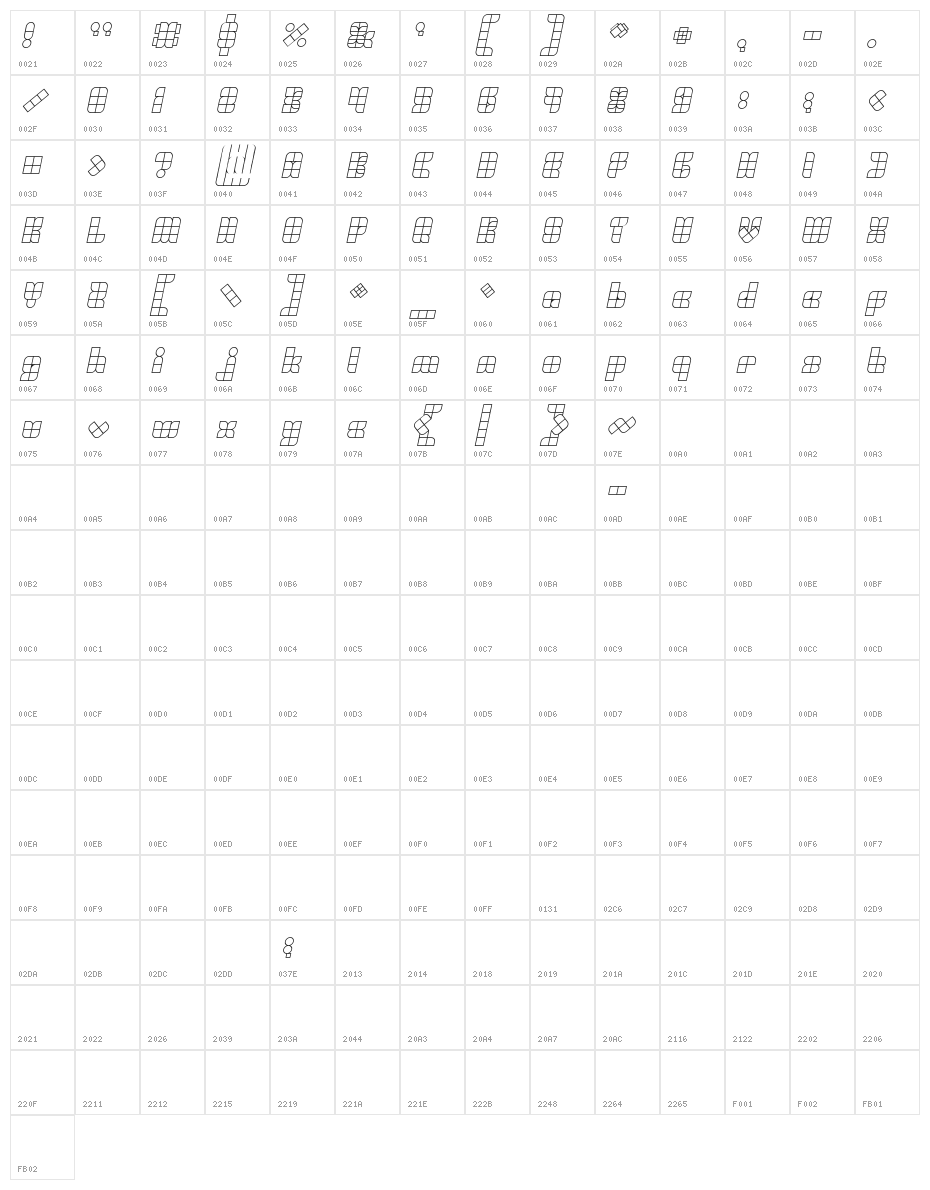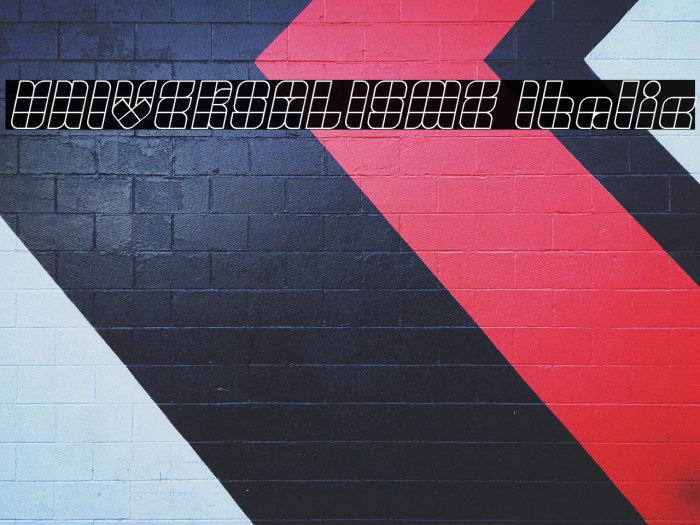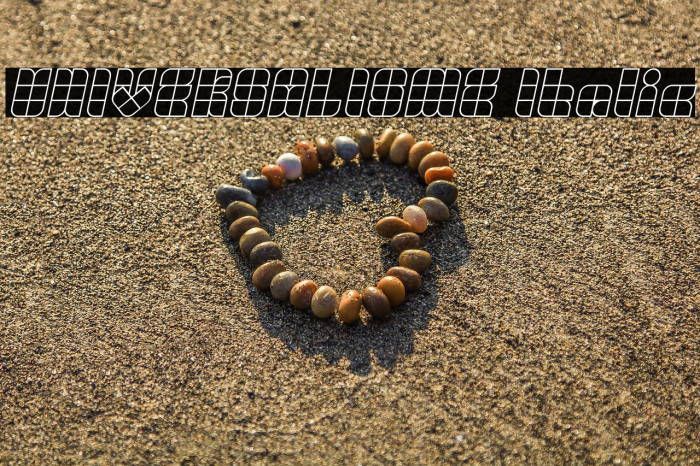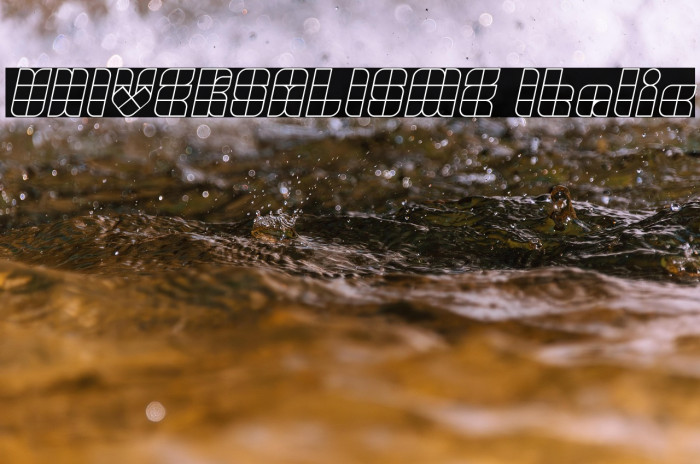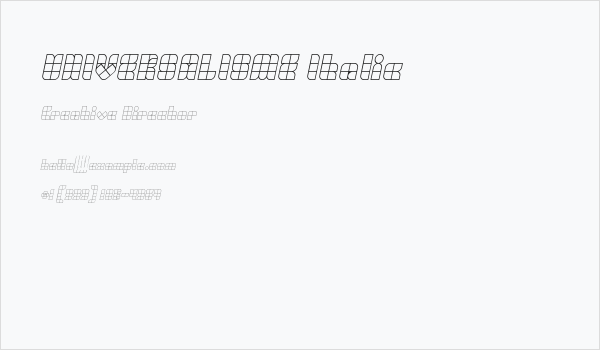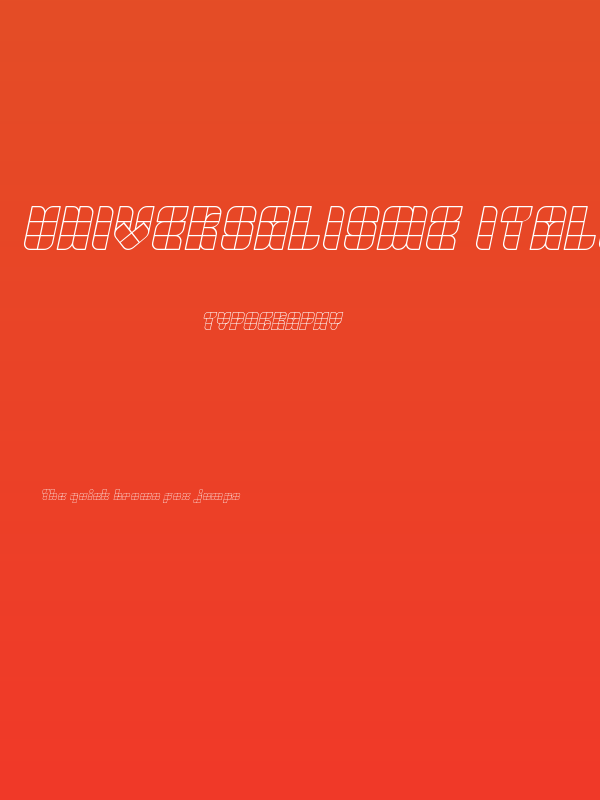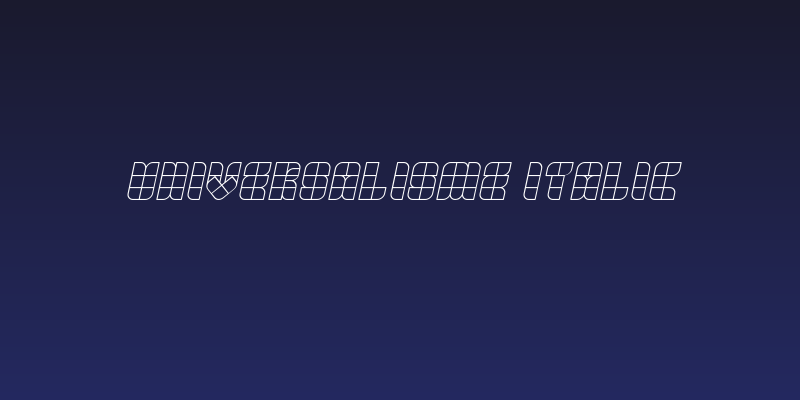
UNIVERSALISME Italic Font
UNIVERSALISME Italic Description
This font features a unique geometric design with a grid-like structure, where each character is composed of interconnected lines and shapes, creating a futuristic and abstract appearance. The letters are formed with a series of rounded rectangles and straight lines, giving them a distinct, modular look. The uppercase and lowercase letters maintain a consistent style, with the lowercase being slightly smaller and more compact. Numbers and special characters follow the same design principles, ensuring uniformity across all glyphs. The overall aesthetic is modern and experimental, making it suitable for creative and unconventional projects.
| Use Case | Logos, Posters, Digital Art |
| Proposed Projects | Ideal for digital art, modern branding, tech-themed designs, and experimental layouts. |